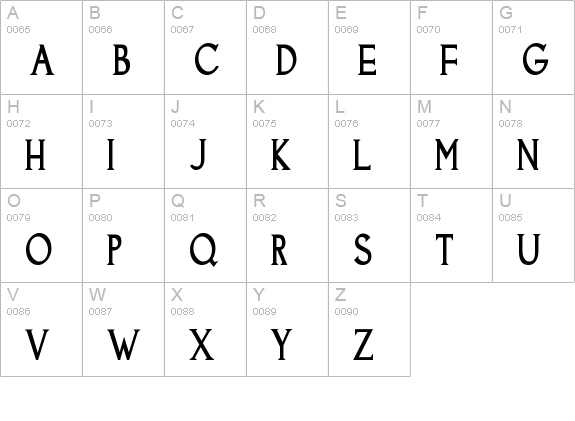
Goodfish Bold is a strong, high-contrast variant in the Goodfish typeface family \xE2\x80\x94 well suited to headlines, attention-grabbing titles, and strong calls-to-action.
Goodfish Bold is a dynamic and modern typeface that exudes confidence and sophistication. With its bold and striking appearance, this font is perfect for grabbing attention and making a statement. Whether used for headlines, logos, or branding materials, Goodfish Bold will surely leave a lasting impression. What sets Goodfish Bold apart is not only its strong visual impact but also its versatility. It is suitable for a wide range of design projects, from posters and banners to websites and social media graphics. The clean lines and sharp edges of this font make it easy to read while still adding a touch of style and flair. One of the best things about Goodfish Bold is that it is available for free download at FontsMarket.com. This means that you can easily access and use this fantastic font in your projects without any cost. Don't miss out on the opportunity to enhance your designs with the bold and eye-catching Goodfish Bold font – download it today and take your creations to the next level.